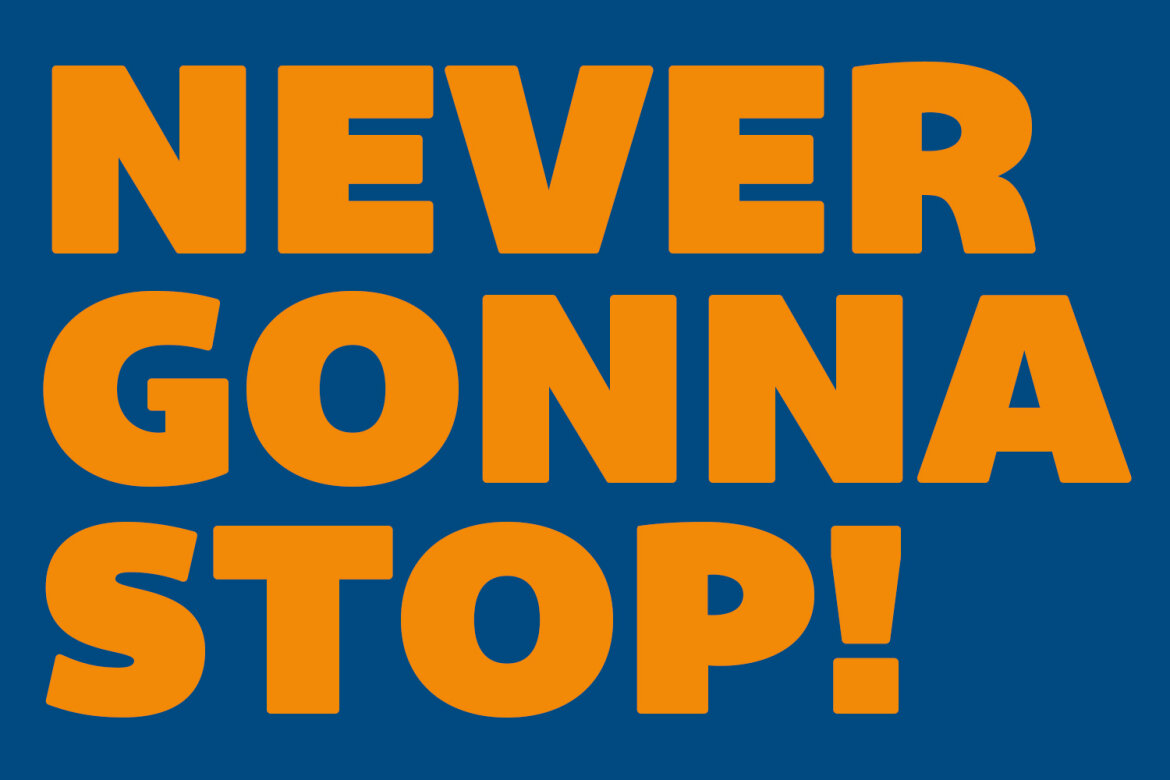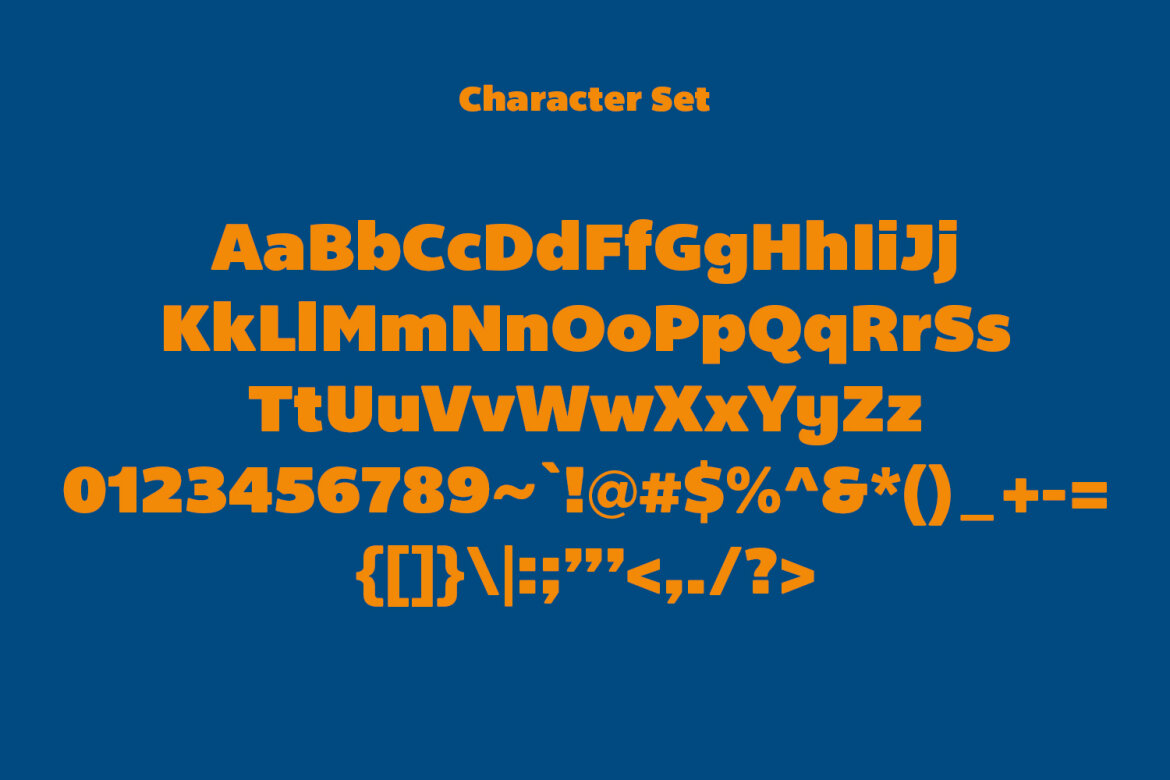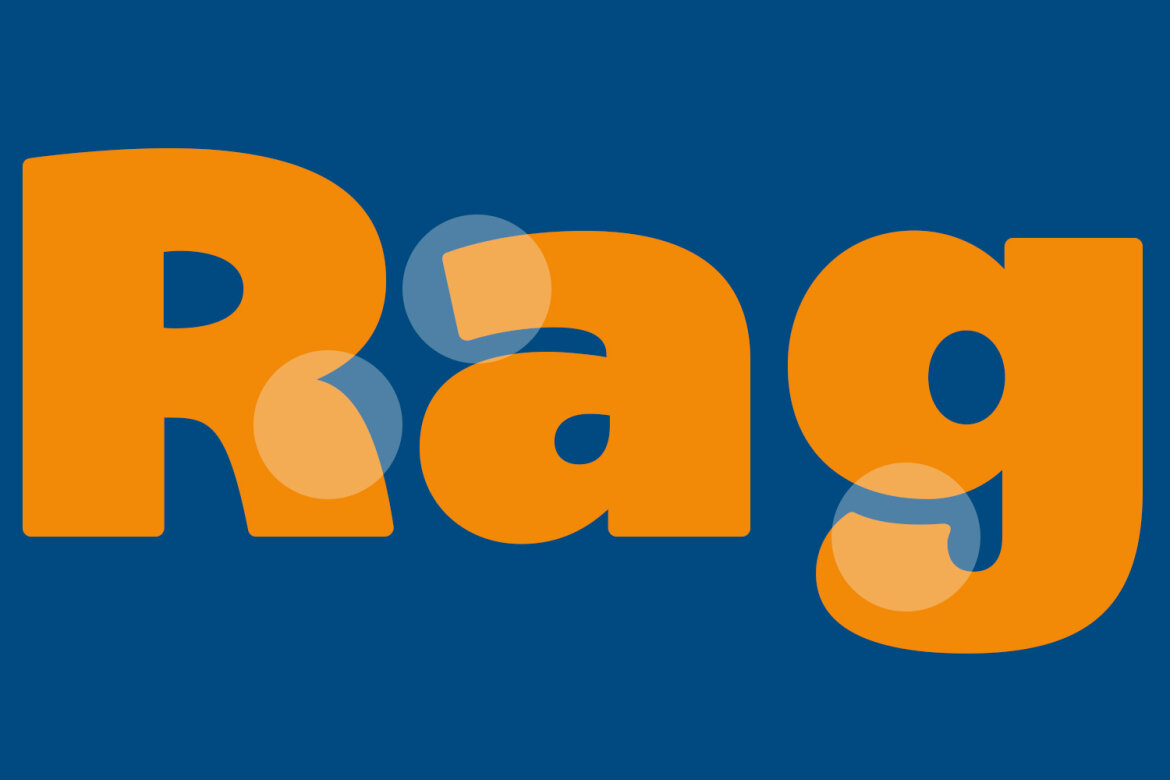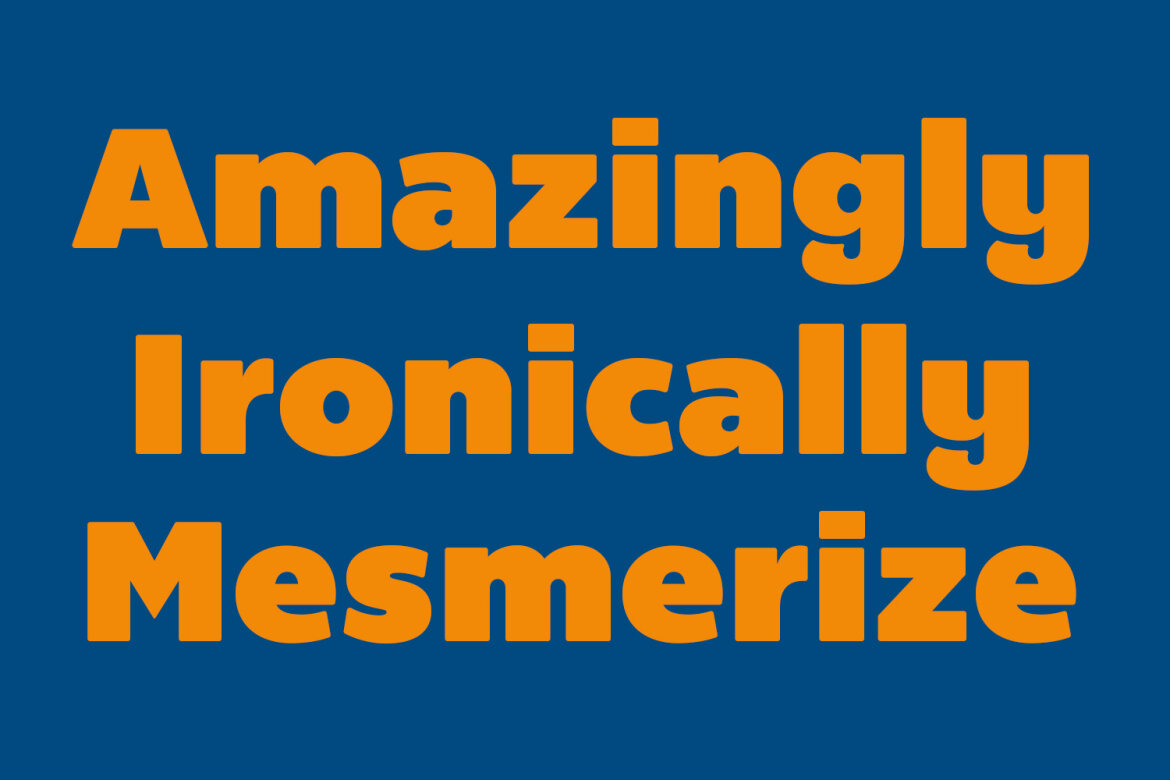
Gloy Display Sans FREE Font
Gloy
Gloy is a modern clean sans serif font. Bold stroke, fun character with a bit of ligatures and alternates. To give you an extra creative work. Gloy font support multilingual more than 100+ language. This font is good for logo design, Social media, Movie Titles, Books Titles, a short text even a long text letter and good for your secondary text font with script or serif. Make a stunning work with Gloy font.